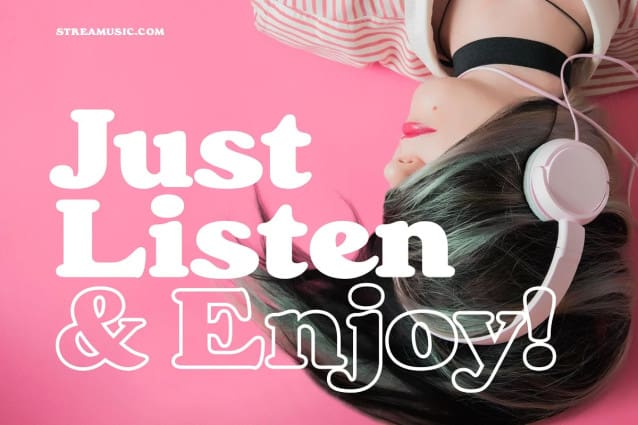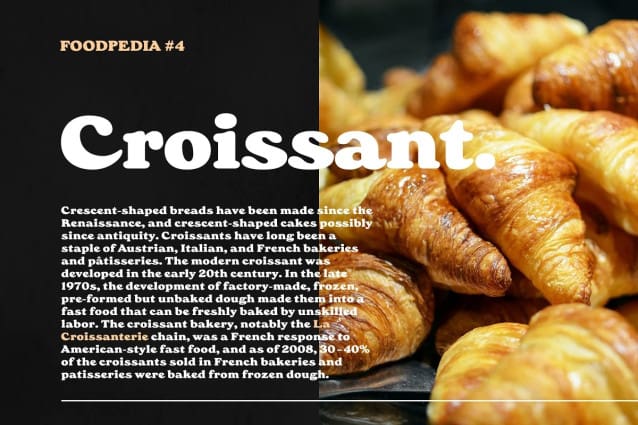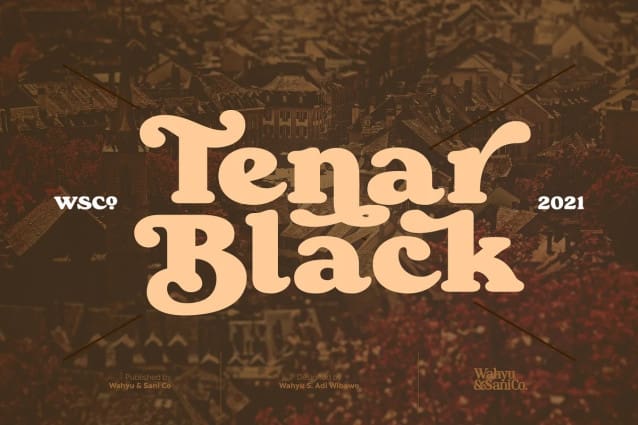
Tenar Black Font
Tenar Black Font is heavy display serif which is highly influenced by Souvenir typeface. This font has 362 glyphs including alternates & ligatures and support 61 Latin languages.